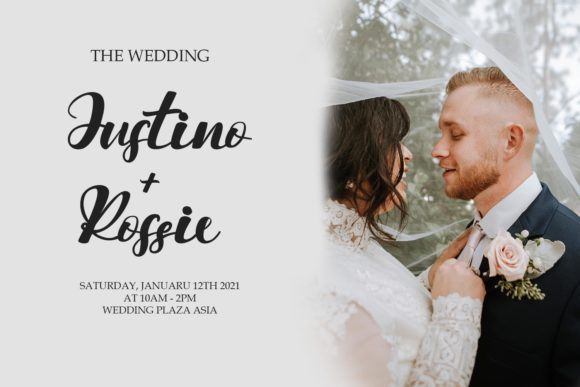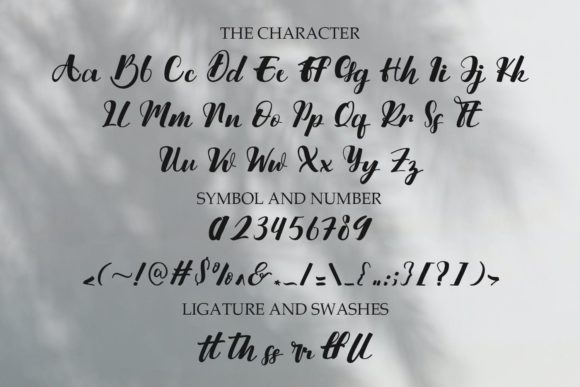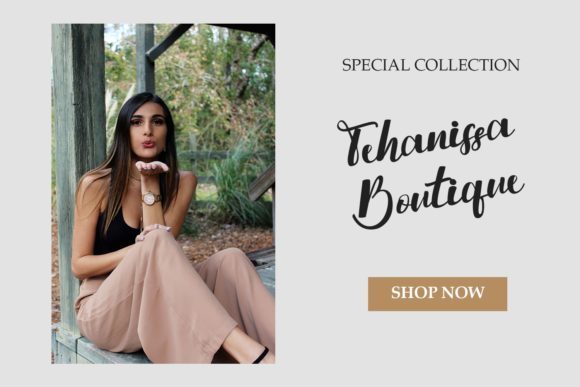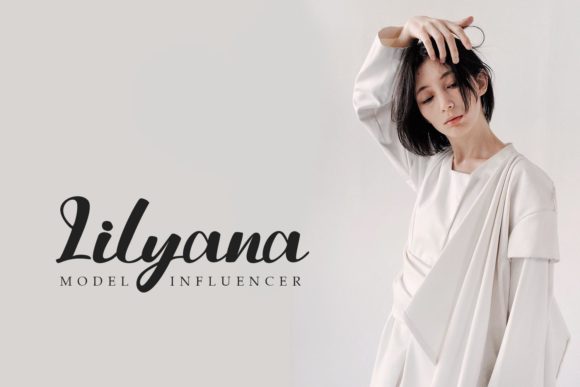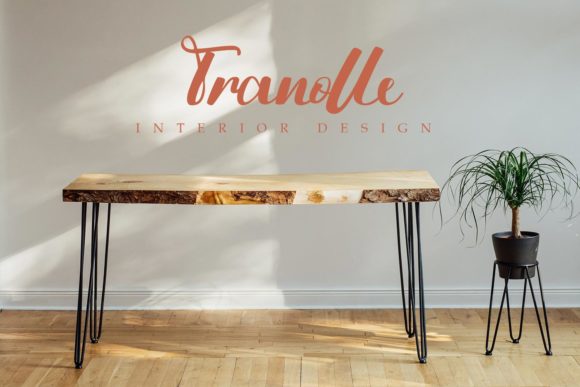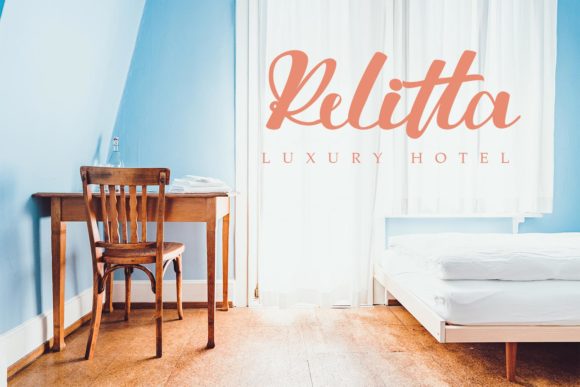
Introduction to Nattijah Font
Have you ever found yourself sitting at your desk, staring at a blank canvas, and suddenly feeling inspired by the simplest things? Maybe it’s the sound of a loved one’s laughter or the sight of a beautiful sunset. For designers, that spark can come from discovering the perfect font. And for many, that perfect font is the Nattijah Font. This lovely brushed script font features an amazing flow that’s sure to captivate your audience.
Whether you’re working on a high-quality design project or simply need a free download to add some personality to your social media graphics, the Nattijah Font is an invaluable resource. With its versatility and unique style, it’s perfect for a wide range of creative projects, from wedding invitations to logos and everything in between.
- Unique and elegant design, perfect for creative projects and artistic expressions.
- Perfect for designers, artists, and creatives working on high-end projects, such as branding, packaging, and advertising.
Honest Review: Nattijah Font
As a designer, I’m always on the lookout for high-quality fonts to elevate my creative projects. The Nattijah Font caught my attention with its unique and elegant design.
- Unique and elegant design that adds a touch of sophistication to any project
- Works well with a variety of design styles, from minimalist to elaborate
While the Nattijah Font is a great addition to any designer’s toolbox, I do have a few limitations to note: ⚠️ Limited character set, which may not be suitable for longer text-based projects, and ⚠️ Not as versatile as some other fonts on the market.
Overall, I’m impressed with the Nattijah Font and would recommend it to designers looking for a high-quality, elegant font for their creative projects.
To get the most out of the Nattijah Font, use it with a transparent background for a clean and modern look. Experiment with different font sizes and colors to add visual interest to your design.
The Nattijah Font is perfect for a variety of creative projects, including: